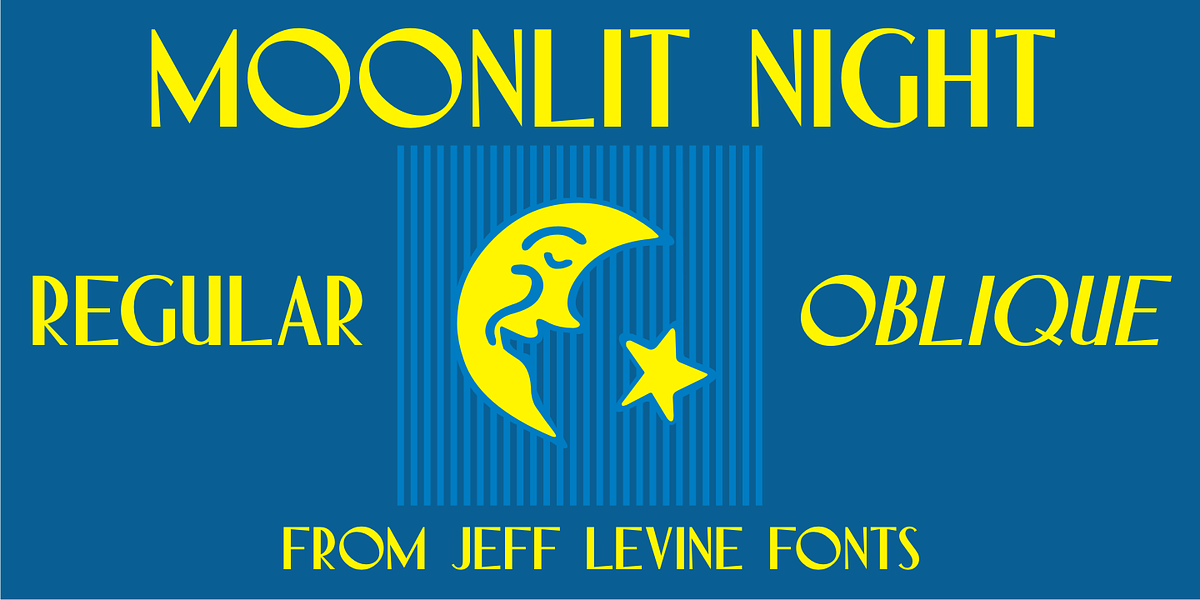
Moonlit Night JNL
The simple, hand lettered sans serif title on the 1935 sheet music for "Campus Moon" was the design model for Moonlit Night JNL, which is available in both regular and oblique versions.